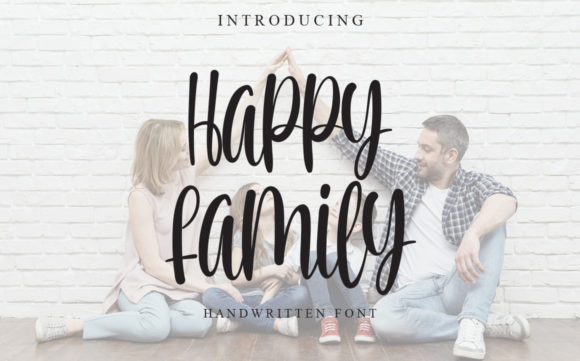
About Happy Family Font
Happy Family is a sweet and romantic handwritten font featuring a delicate flow. Use it for wall displays, wedding invitations, social media post logos, and any project that requires impressive typography.